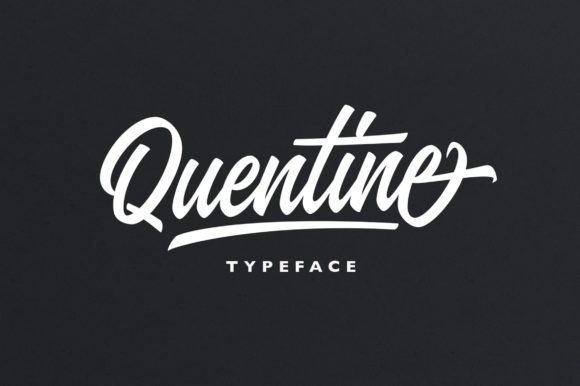
About Quentine Script Font
Quentine is an enchanting handwritten font. This versatile script font has a wide spectrum of applications ranging from greeting cards to headlines and is guaranteed to add a romantic feel to your next project.